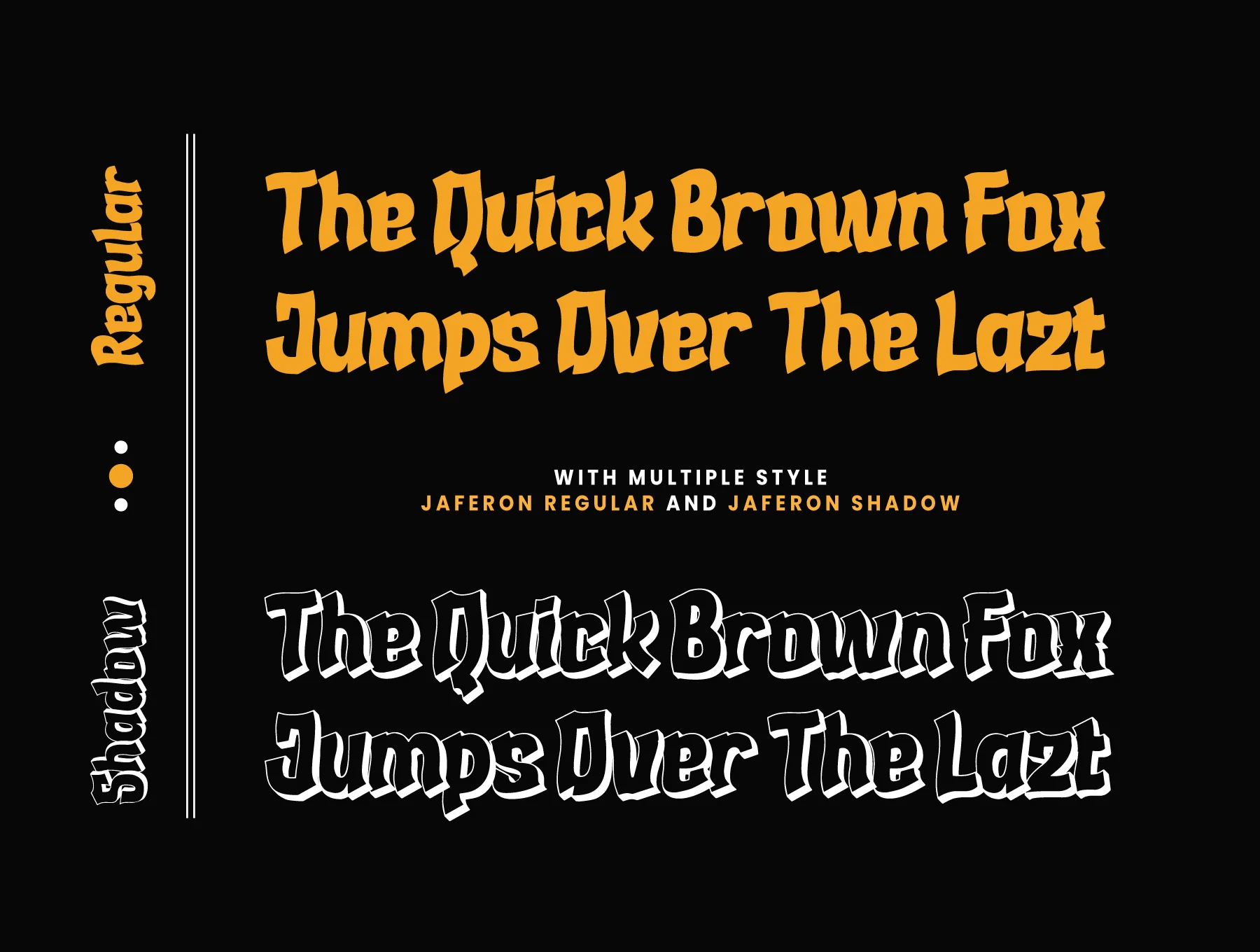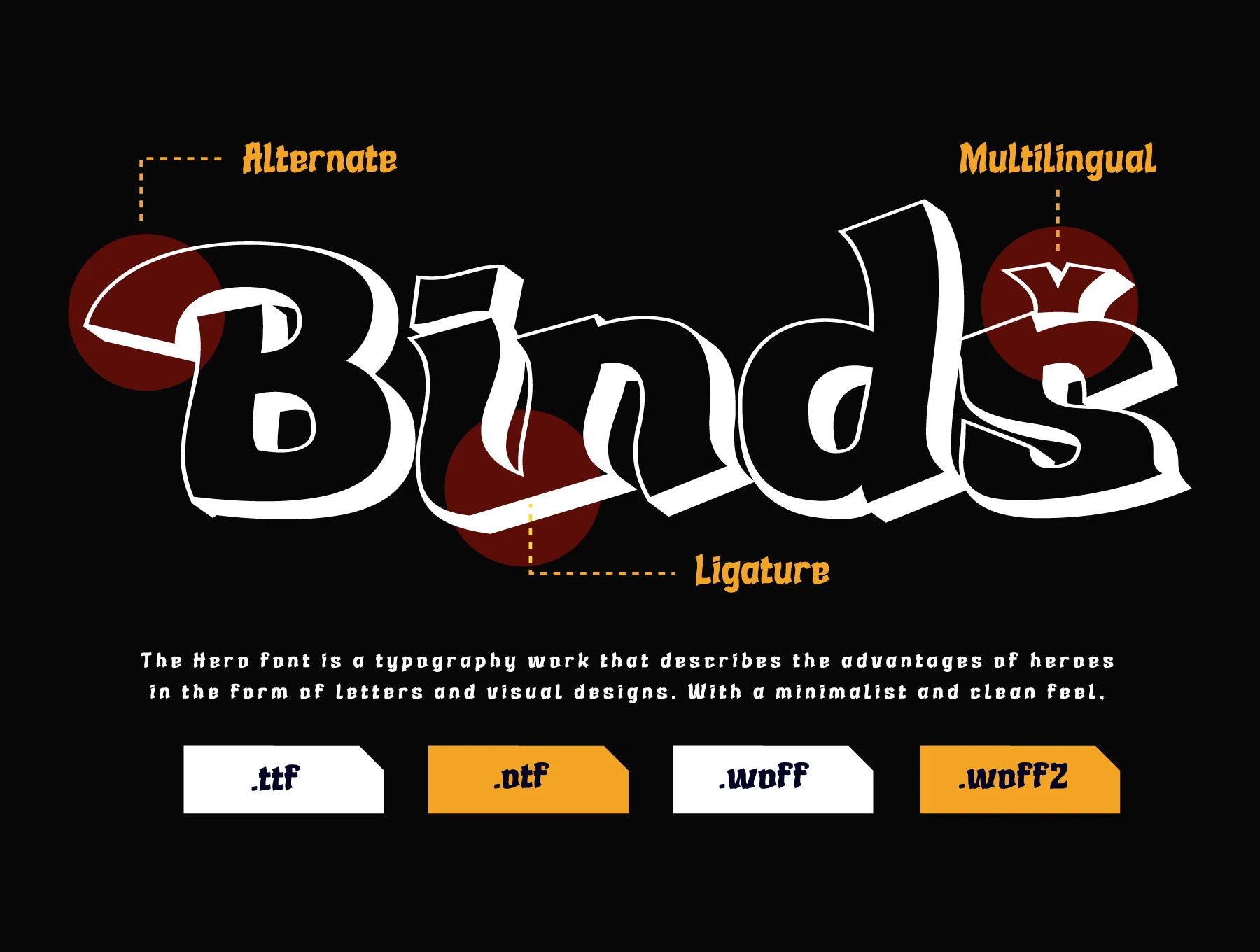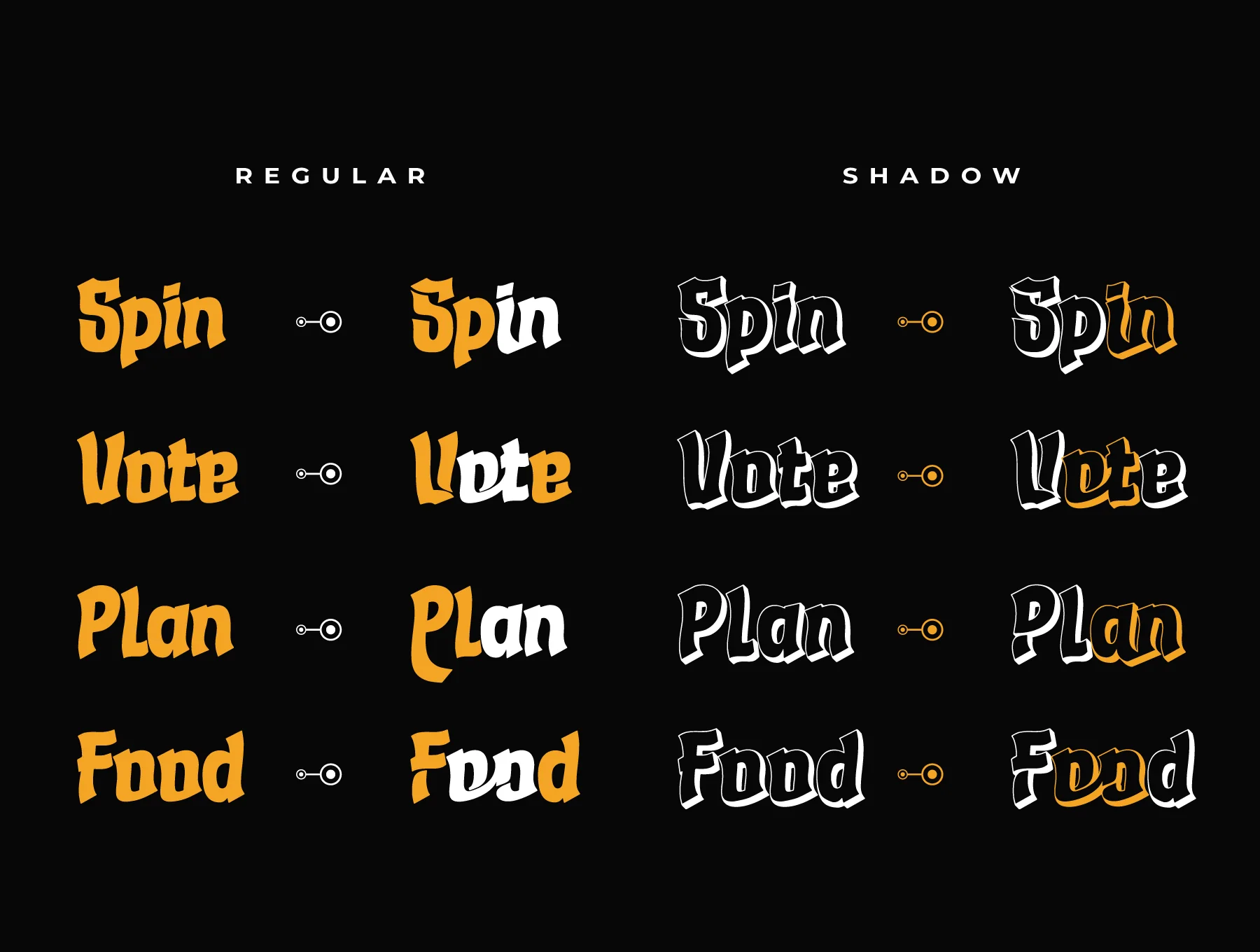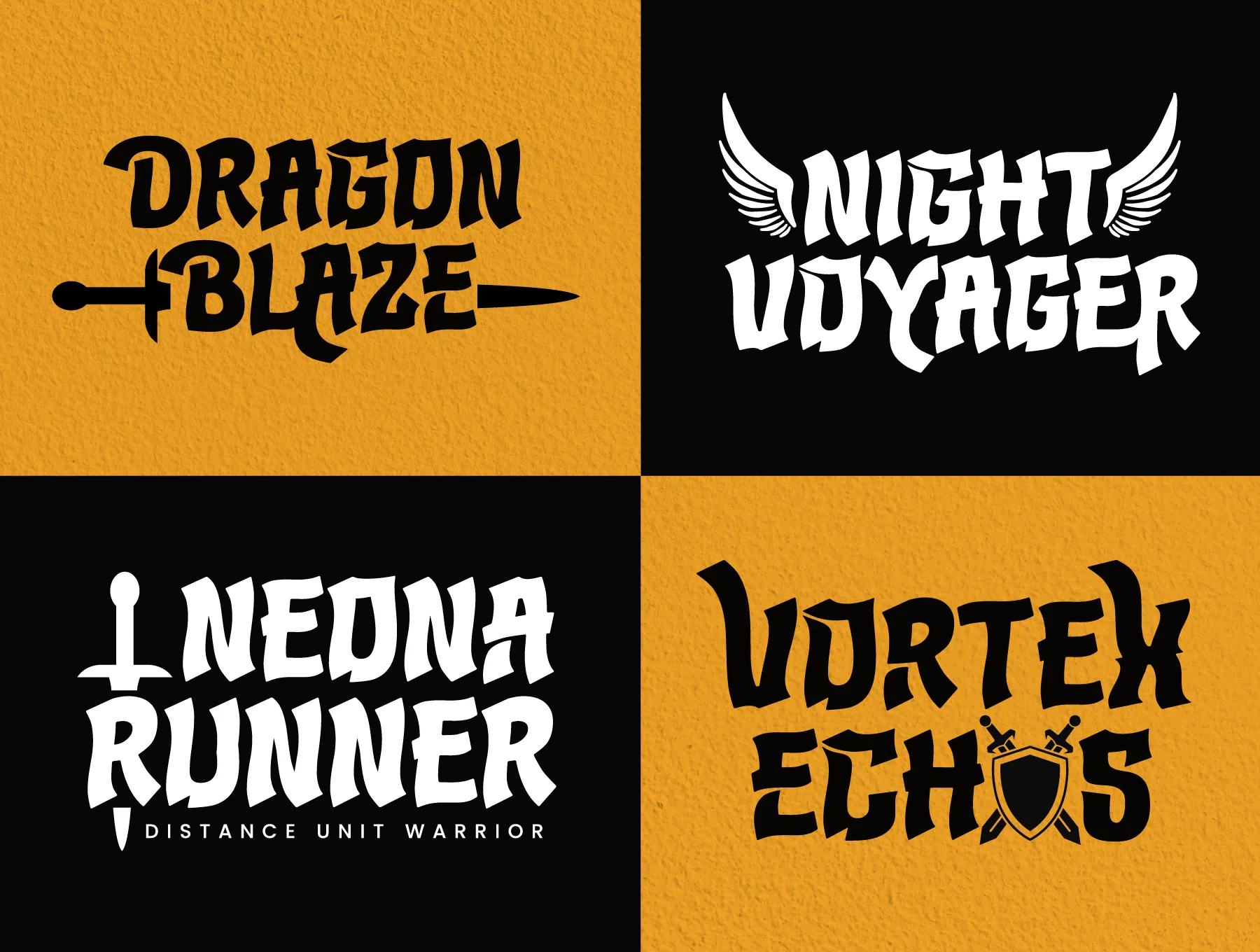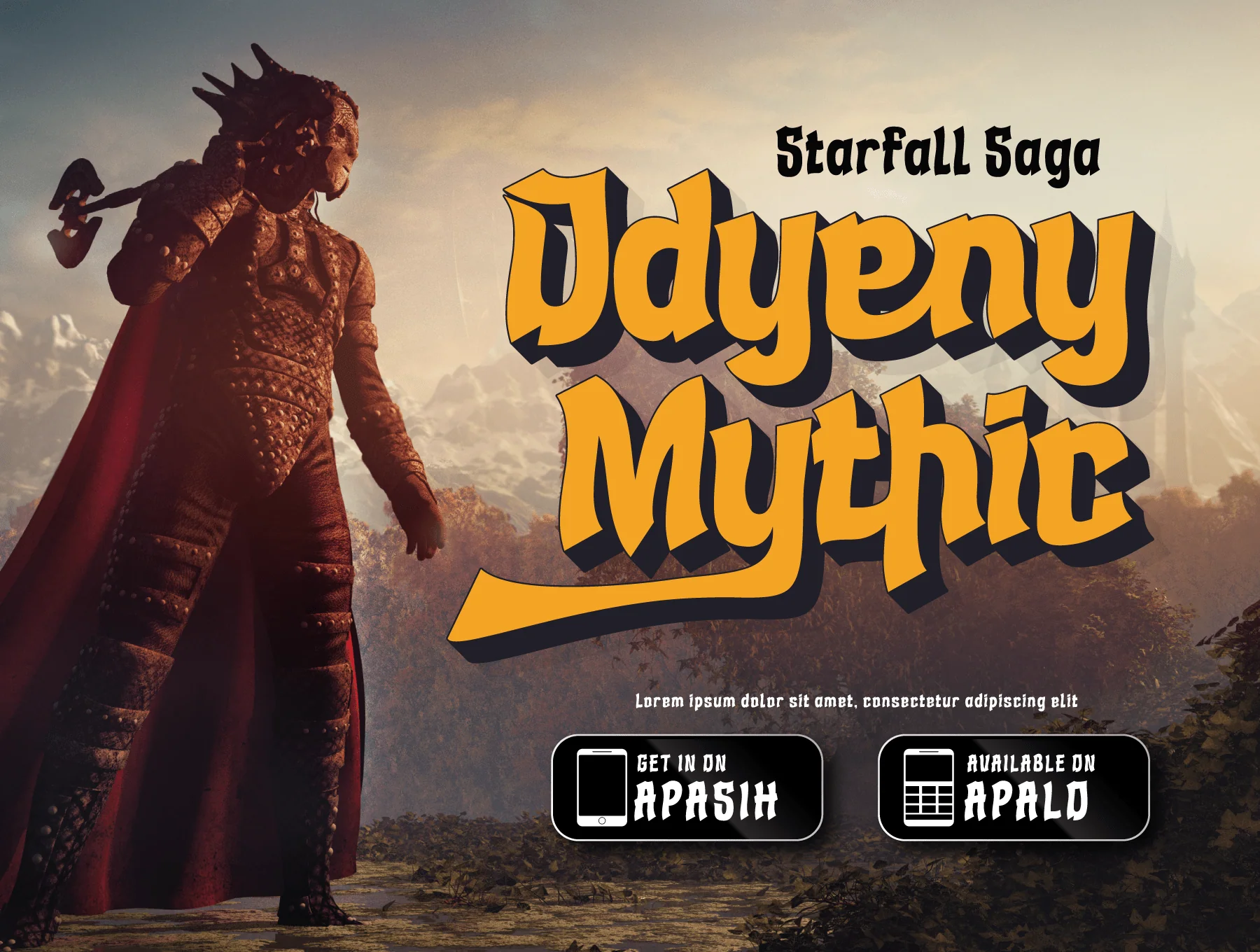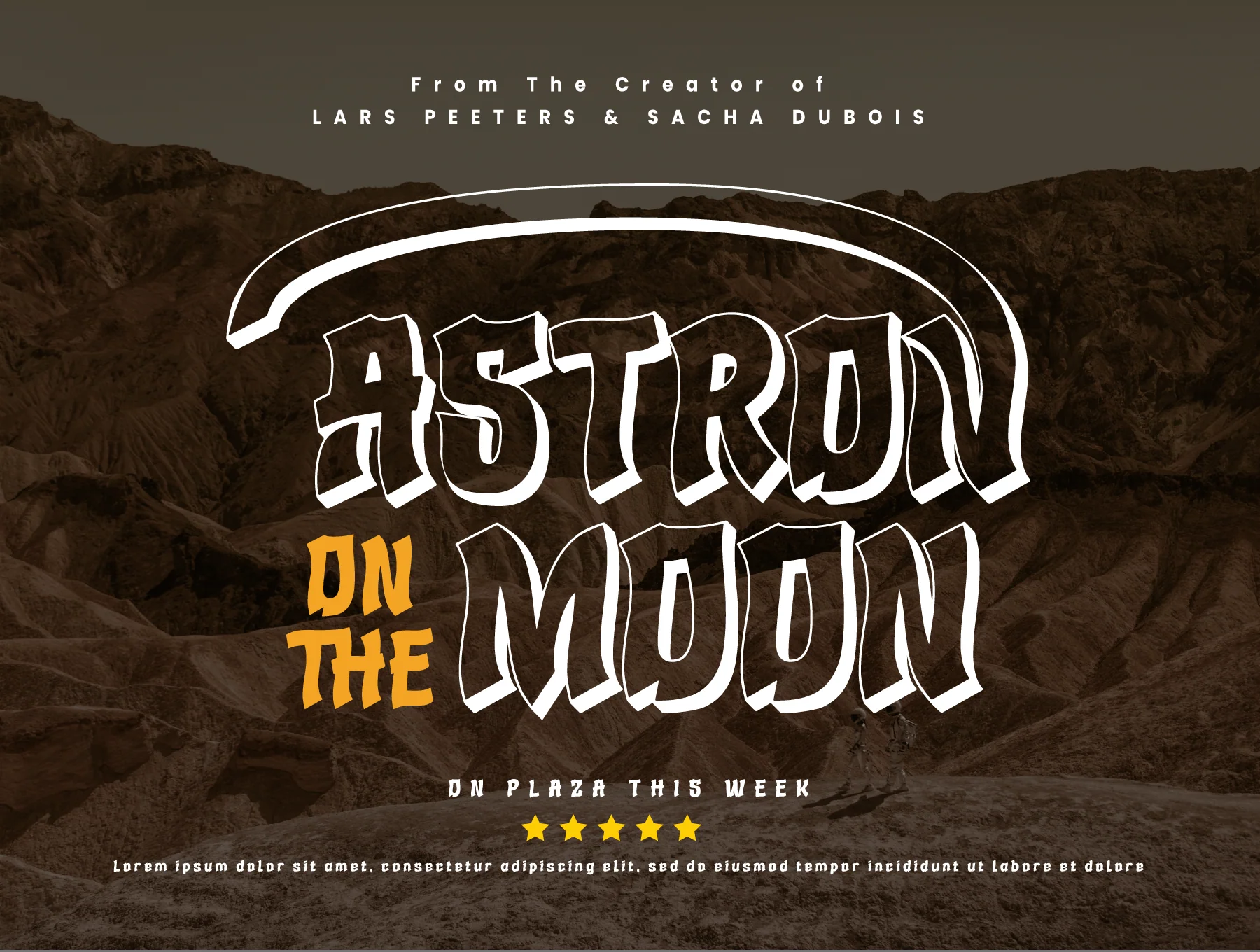
Jaferon | Display Hero Font
Jaferon is a display typeface with a bold, striking superhero-inspired look.
Complete ISO Latin-1 character set
Stylistic alternates and ligatures
Jaferon is a superhero-inspired display font built for bold movie, game, and design projects. Its powerful letterforms include alternates, ligatures, ISO Latin 1 glyphs, PUA encoding, and multilingual support. Package includes OTF, TTF, WOFF, WOFF2, CSS, and HTML files with simple installation.